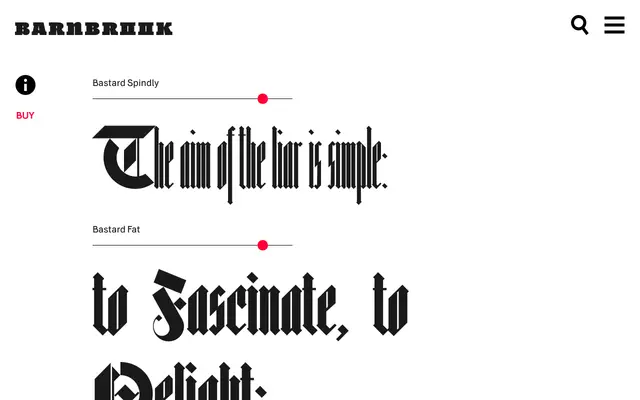
Bastard
Barnbrook · Jonathan Barnbrook · 1990
A modular blackletter drawn on a personal computer in 1988, referencing sources from the Gutenberg Bible to Dürer while embedding deliberate political and consumerist commentary into individual letterforms.
Originally drawn in 1988 using primitive font design software and published around 1990, Bastard applies William Morris's dictum that the tool should be acknowledged in the form of the design. Its letterforms were assembled digitally using a modular system, producing a blackletter that sits between historical tradition and contemporary production methods. Specific glyphs carry pointed references: the uppercase R alludes to the fascist boot, the uppercase Y to the Yen symbol, and the lowercase of the Spindly weight echoes a barcode.
Explicitly a blackletter typeface, digitally assembled using a modular system that acknowledges historical blackletter rhythm and drama while transforming it through computer-aided production methods.